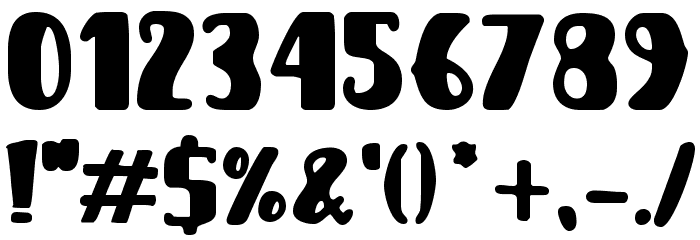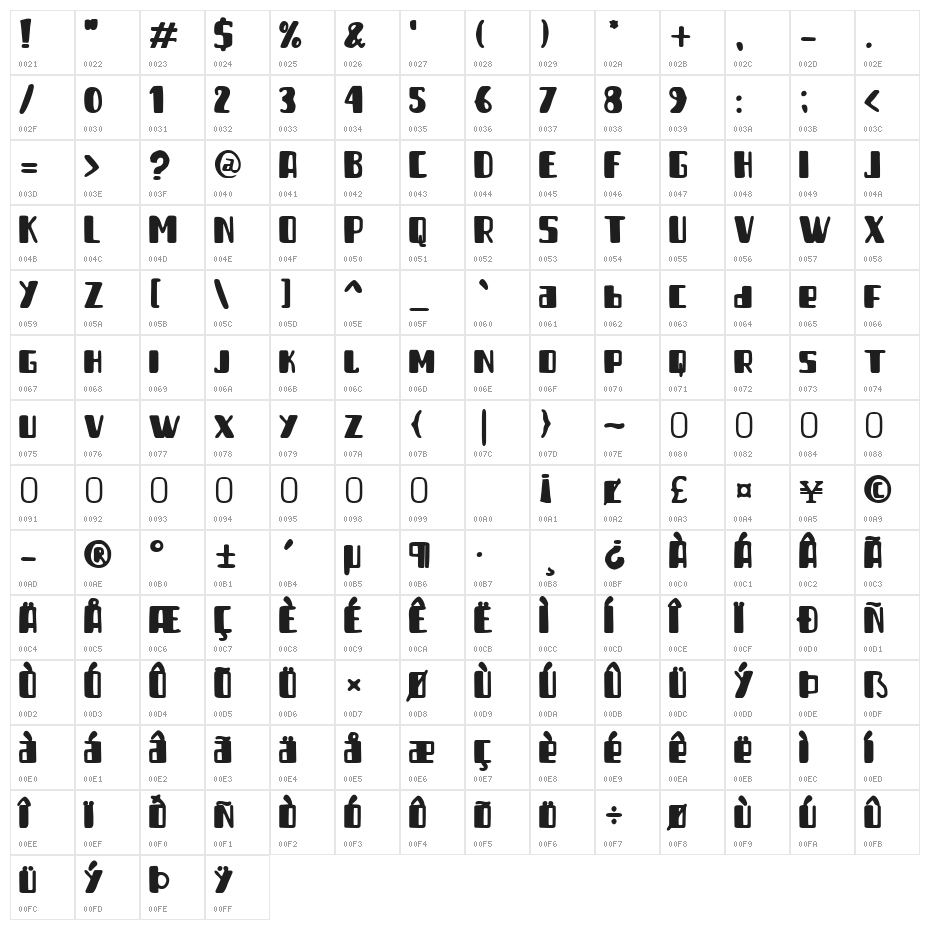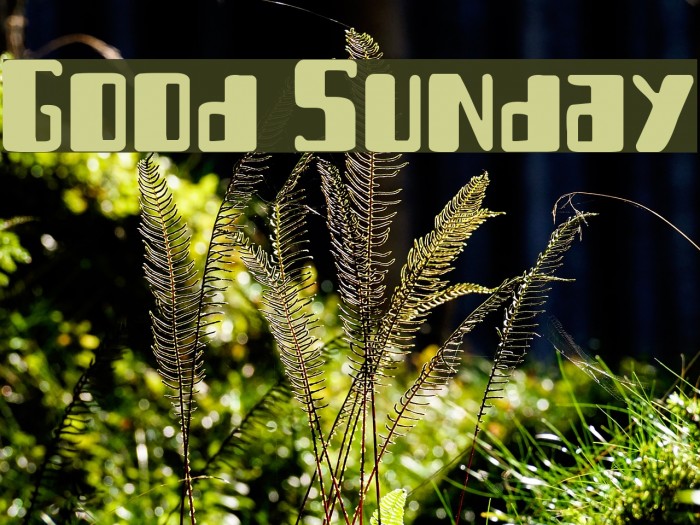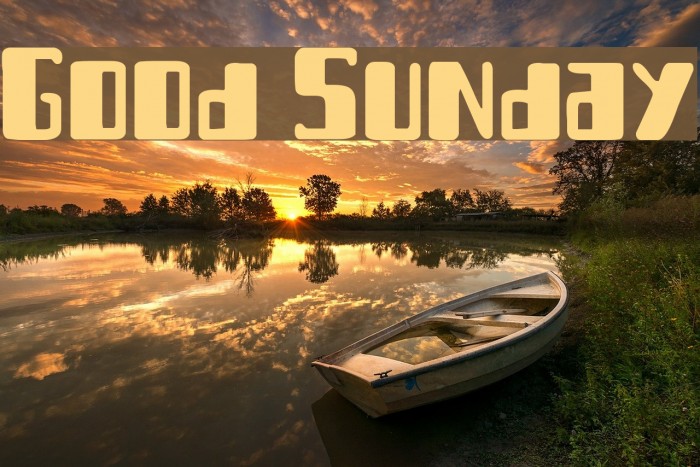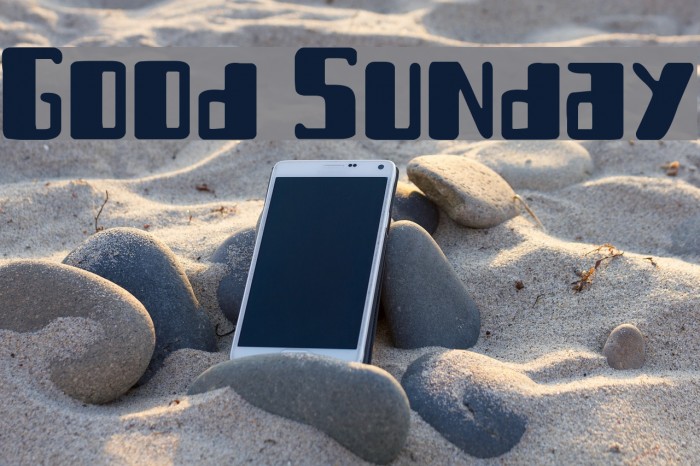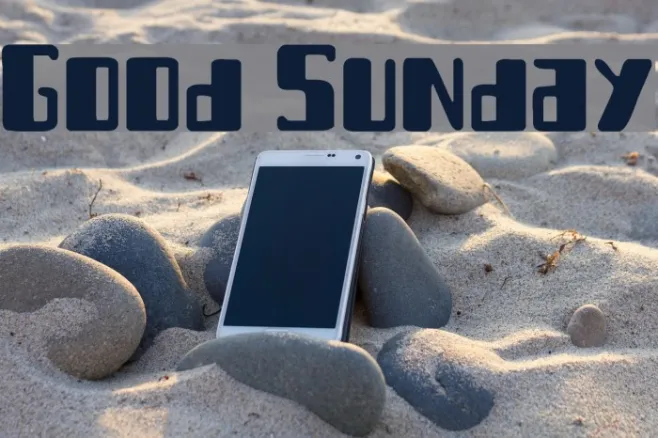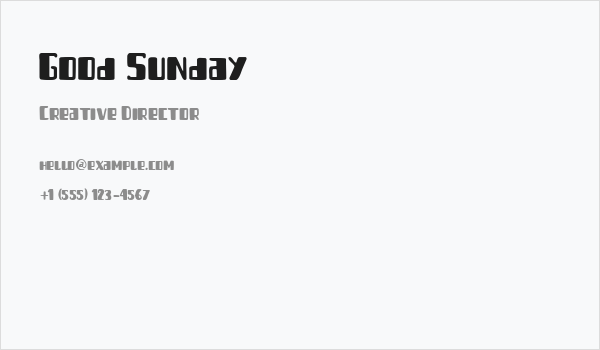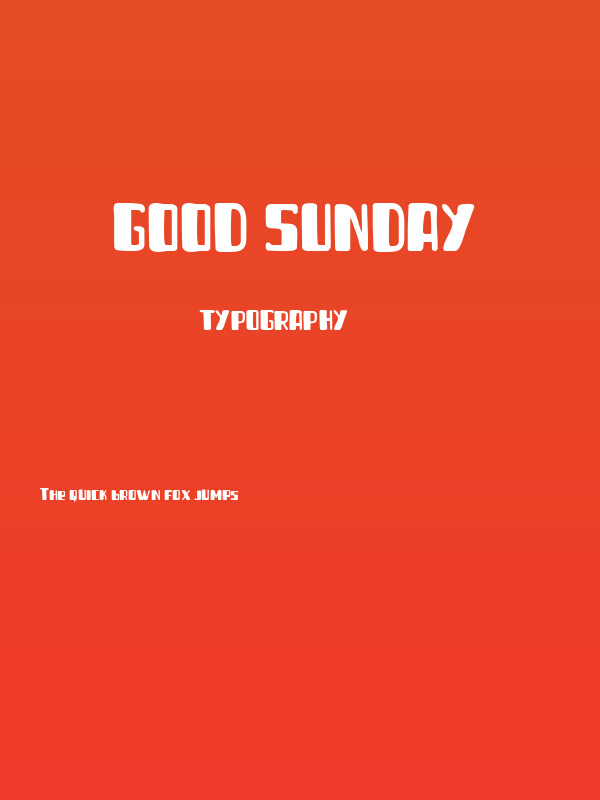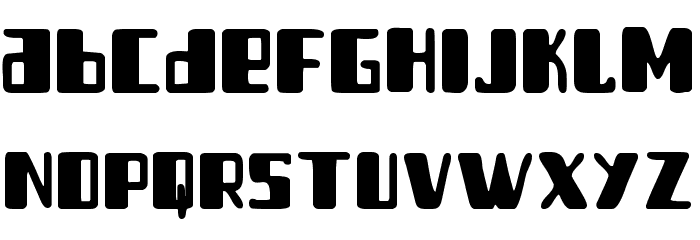
Good Sunday Font
Good Sunday Description
This font features a bold, playful design with rounded edges and a slightly condensed appearance. The characters are thick and uniform, giving it a strong presence. The uppercase and lowercase letters maintain a consistent style, with subtle variations that add a touch of uniqueness. The numbers and special characters are equally bold, ensuring readability and impact. The overall look is modern and slightly retro, making it suitable for eye-catching designs.
| Overall Style | Modern, Retro |
| Proposed Projects | Ideal for posters, logos, children's books, and playful branding projects. |